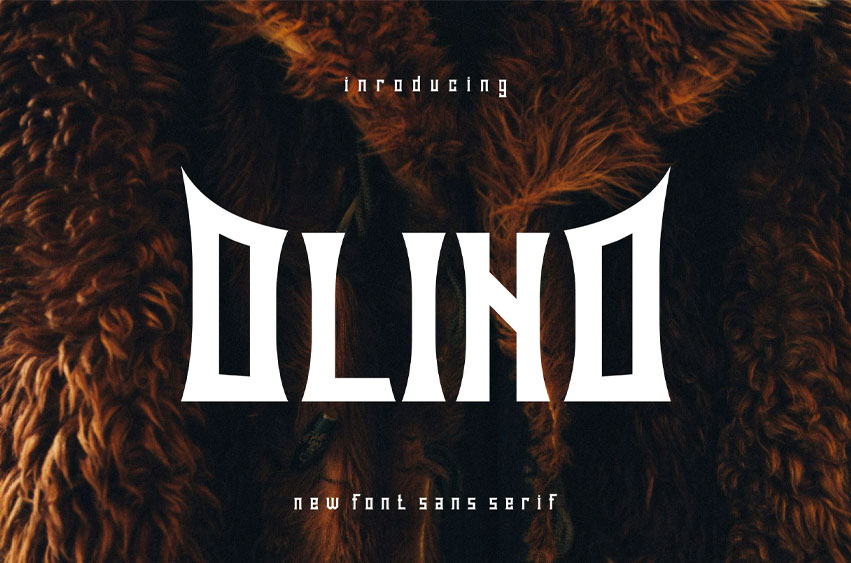
Olino Font
Olino Font Display & Font Logo and authentic display. This font is well-suited for a variety of contexts, such as print design, promotional materials, or magazine layouts.